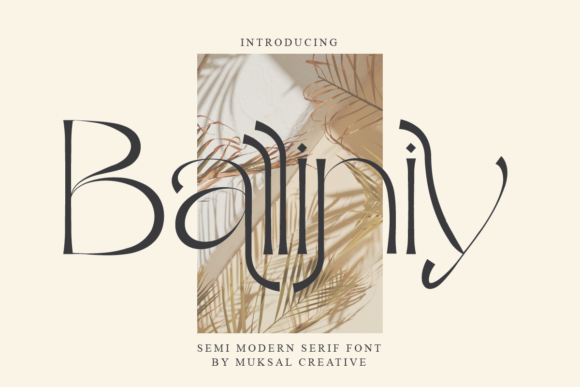
Balliniy Font
Balliniy is an elegant, delicate and thin lettered serif font. It is PUA encoded which means you can access all of the glyphs and swashes with ease! Add it confidently to your favorite creations and let yourself be amazed by the outcome generated.